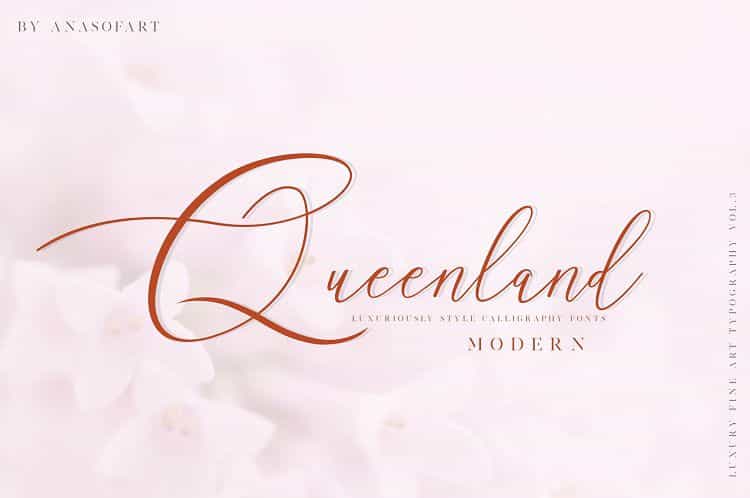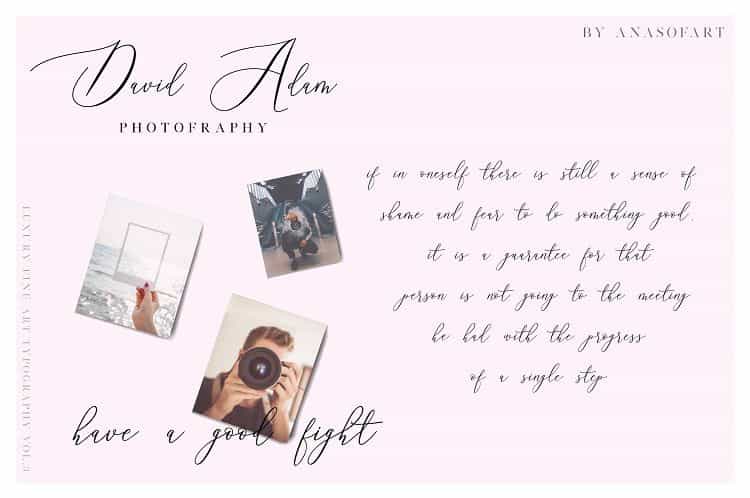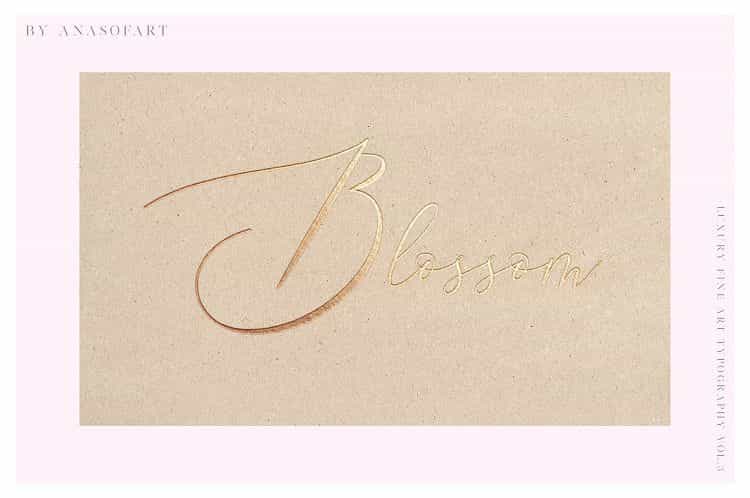
Introducing Queenland Font. Queenland – a classy handwriting with the individual signature style. This charming script font puts your individual input to the latest art project with a touch of elegance, classiness and modernity. Queenland is an ideal place to find beautiful typographic wills for many different projects like logos & branding, invitation, stationery, wedding designs, social media posts and advertisements.